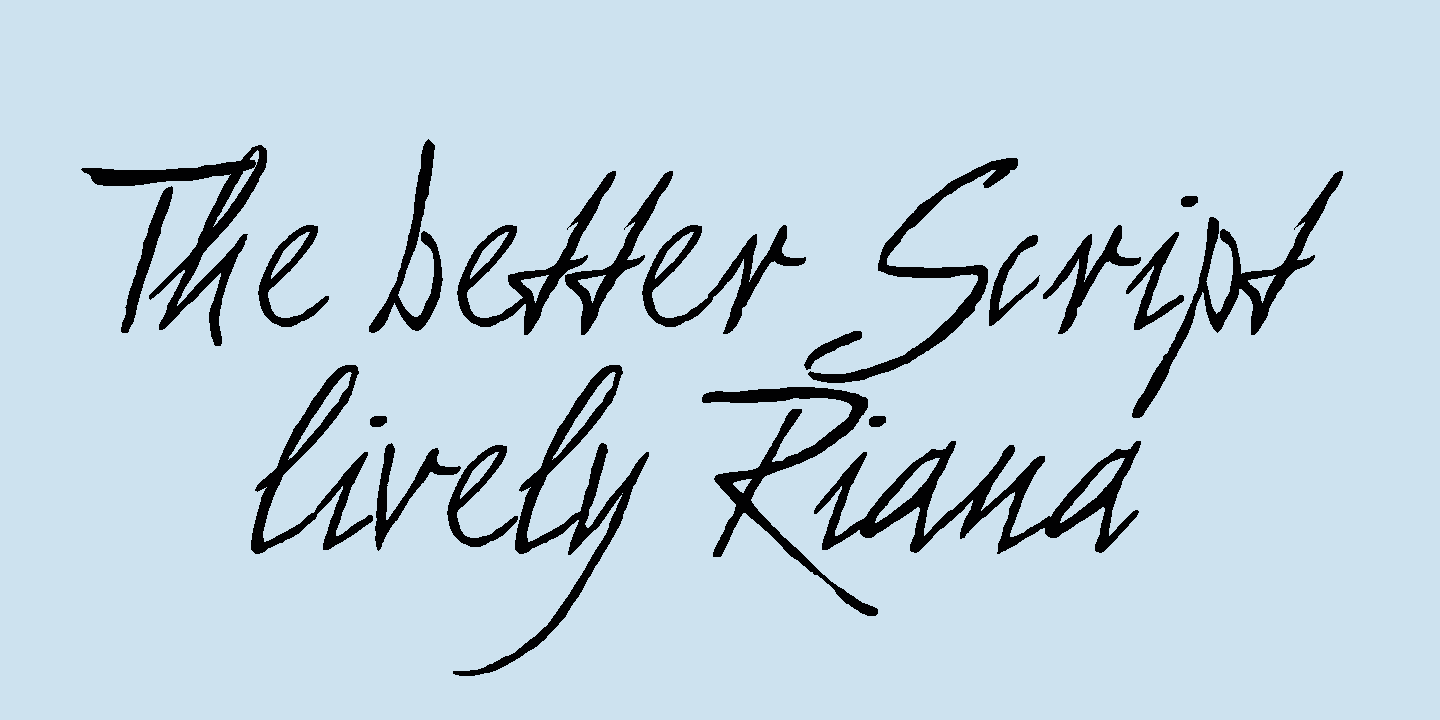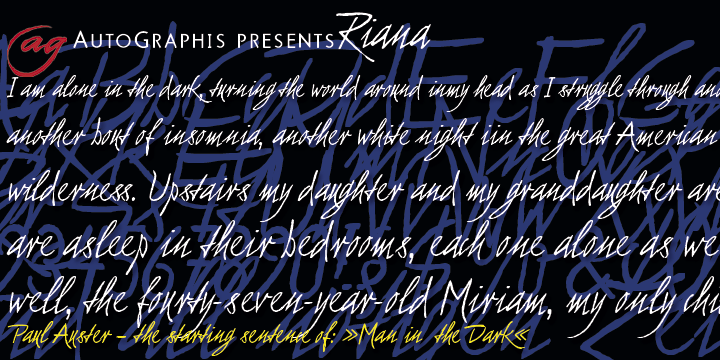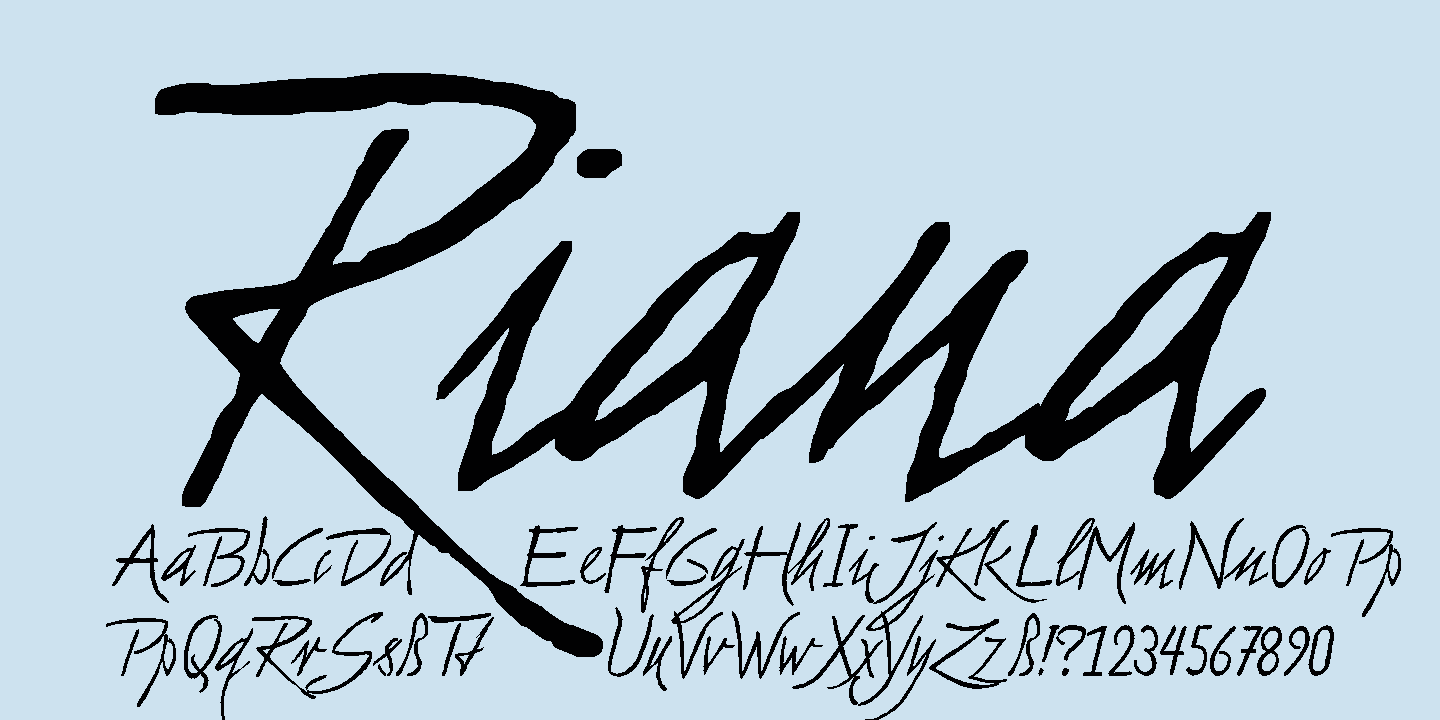
Riana
About Riana
Riana is handwritten, scanned and then carefully worked over to keep the rough touch and the typical ?fountainpen? look. The result is a very lively, expressive font. To me it has an Existentialist touch, but don\’t ask me why.